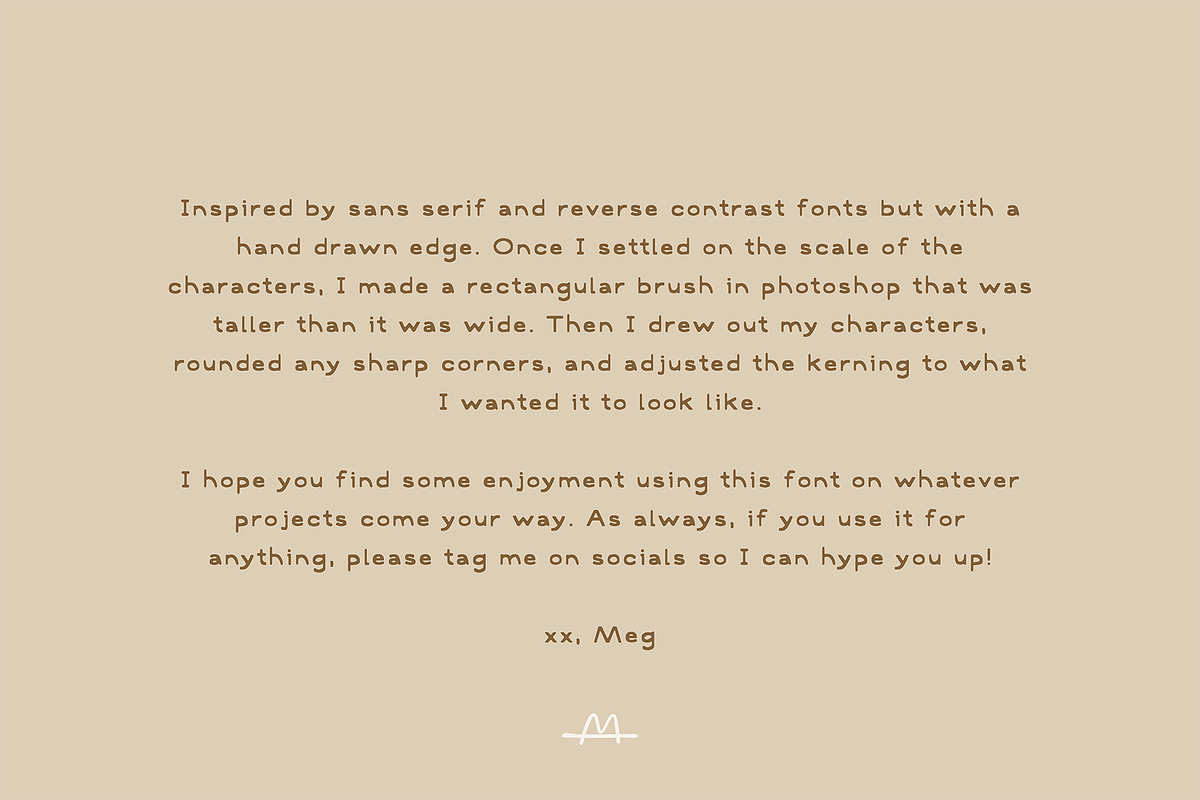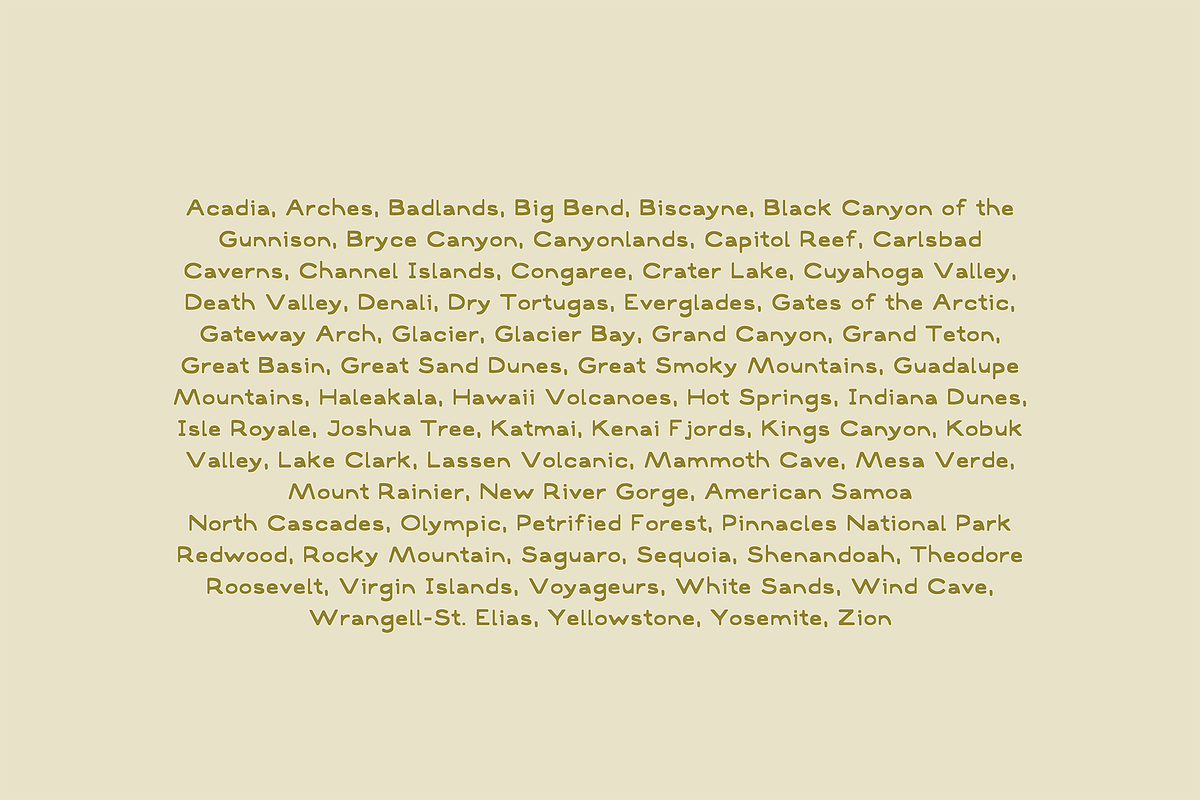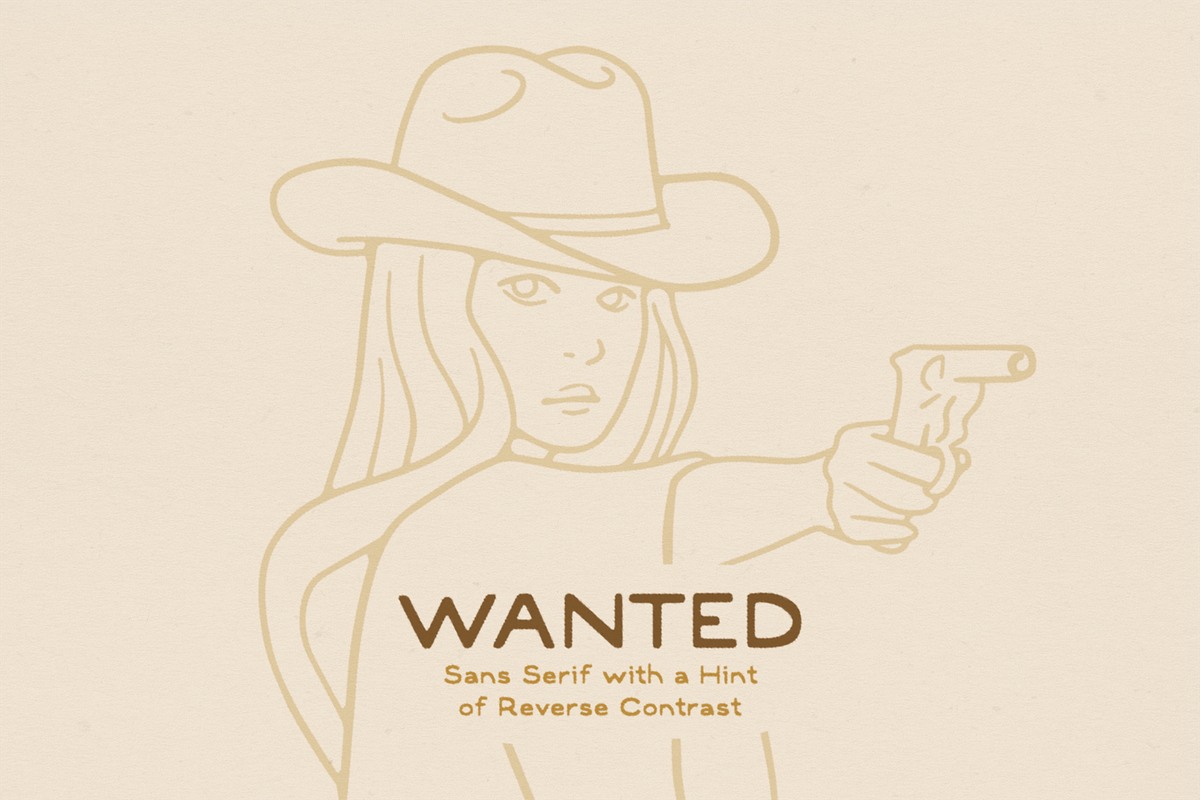
Wanted
A sans serif type face that has a slight reverse contrast. Each letter was painted in Photoshop before being converted to a vector, and the hand drawn element remains. Even though the original inspiration for the vibe was a more blocky, structured font, I personally gravitate towards imperfect fonts. So, meet Wanted. Maybe this type face reminds you of Wanted Posters or Sheriff's badges. Or maybe it just brings a little character to your design, western-inspired or not.